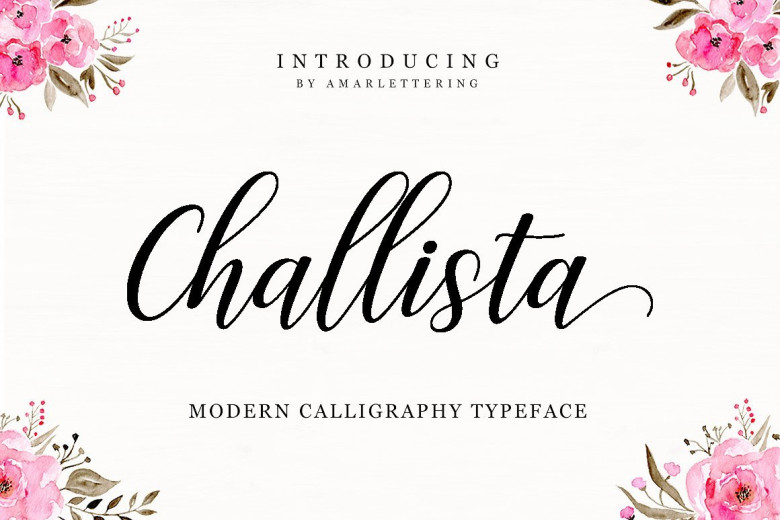
Challista Script Font
Introducing Challista Script Font! Challista designed Amarlettering, this is a premium font, are sold on creativemarket, but it was great, it is free today for download. Challista Script a new fresh & modern script with a handmade calligraphy style, decorative characters and a dancing baseline! So beautiful on invitation like greeting cards, branding materials, business cards, quotes, posters, and more!!